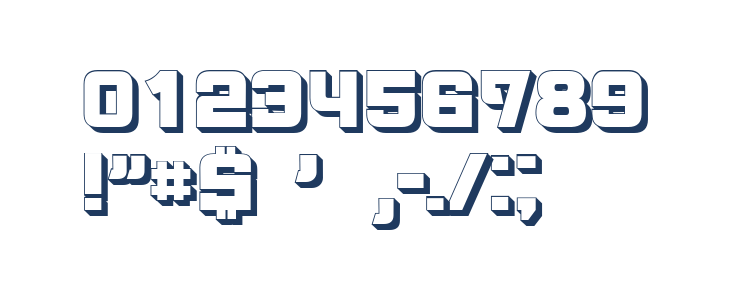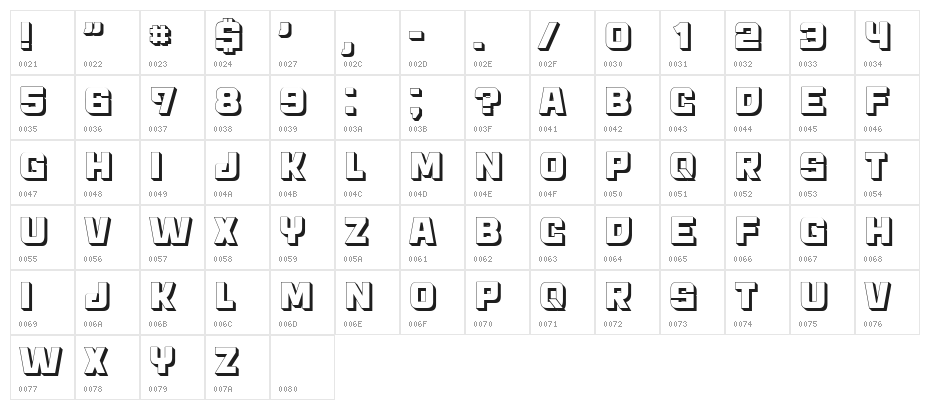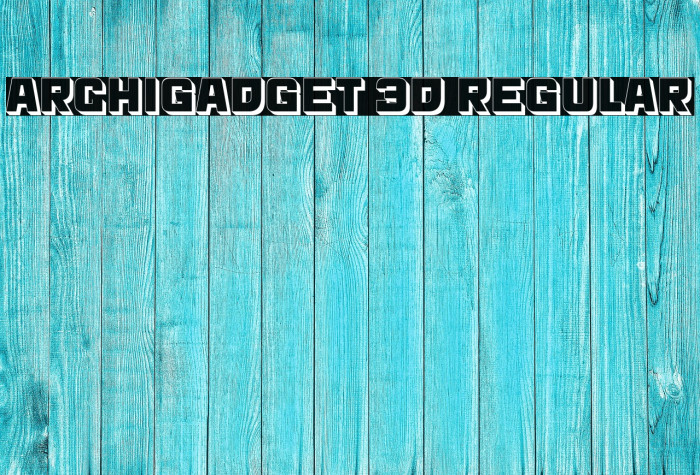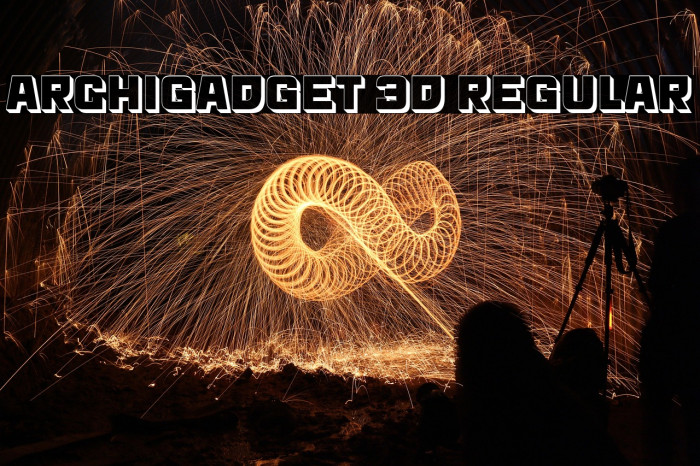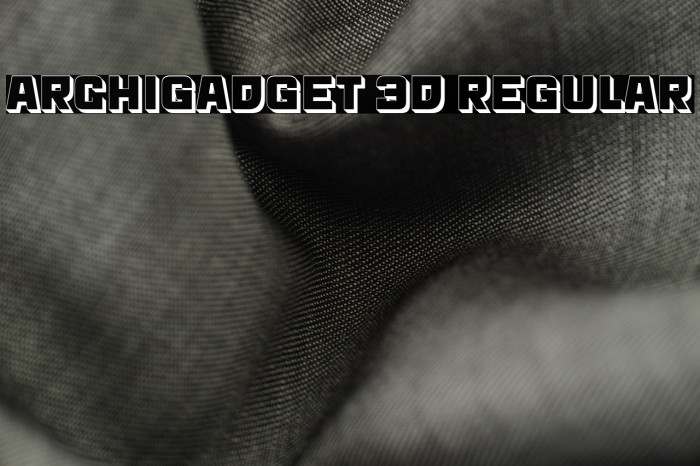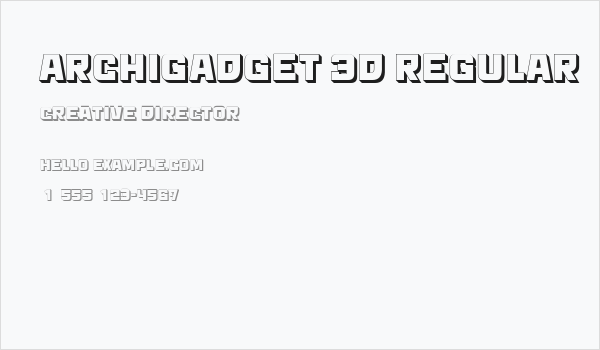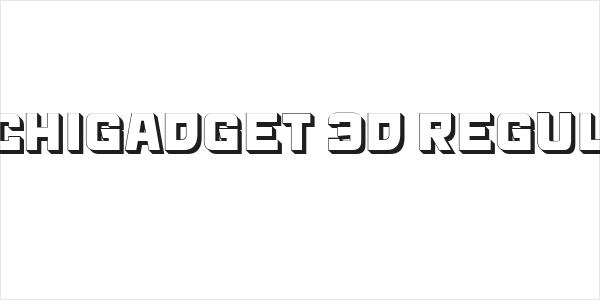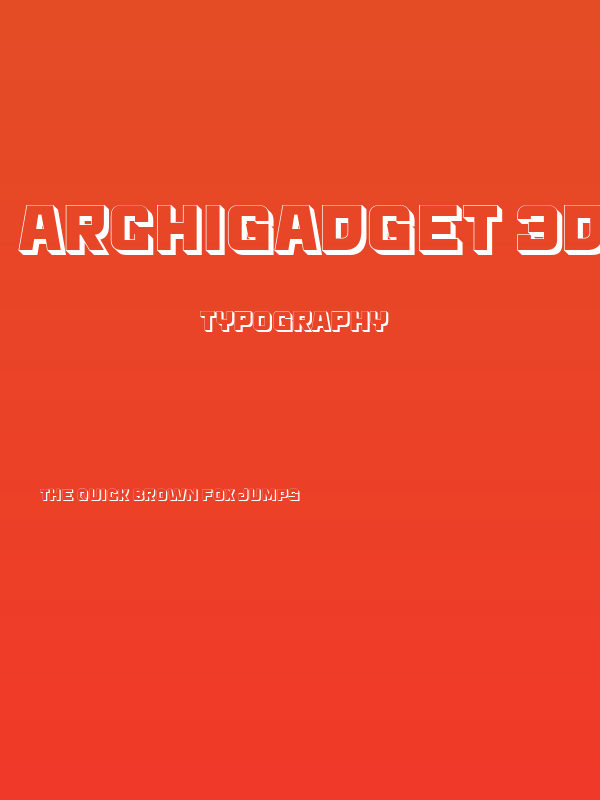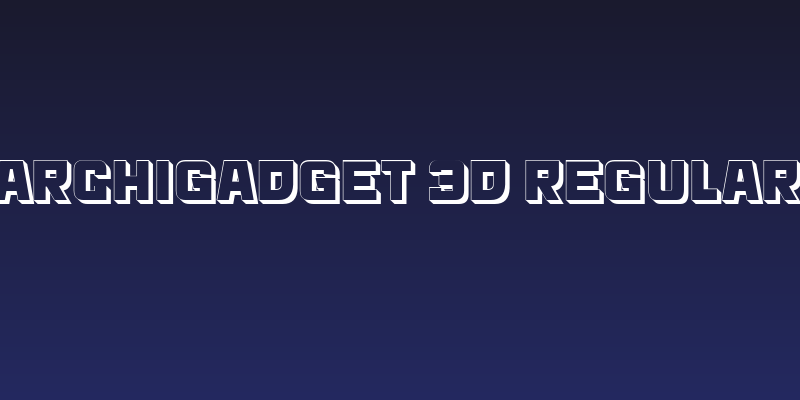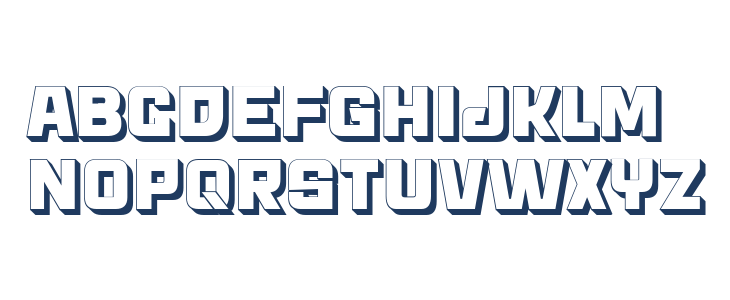
Archigadget 3D Regular Font
Archigadget 3D Regular Description
This font features a bold, three-dimensional design with a strong, impactful presence. Each character is outlined with a shadow effect, giving it a distinct and eye-catching appearance. The uppercase letters are uniform in height and width, creating a cohesive look. The numerals and special characters maintain the same bold style, ensuring consistency across all elements. This font is ideal for projects that require a modern and dynamic aesthetic.
| Proposed Projects | Ideal for posters, headlines, logos, and any design requiring a bold, modern impact. |